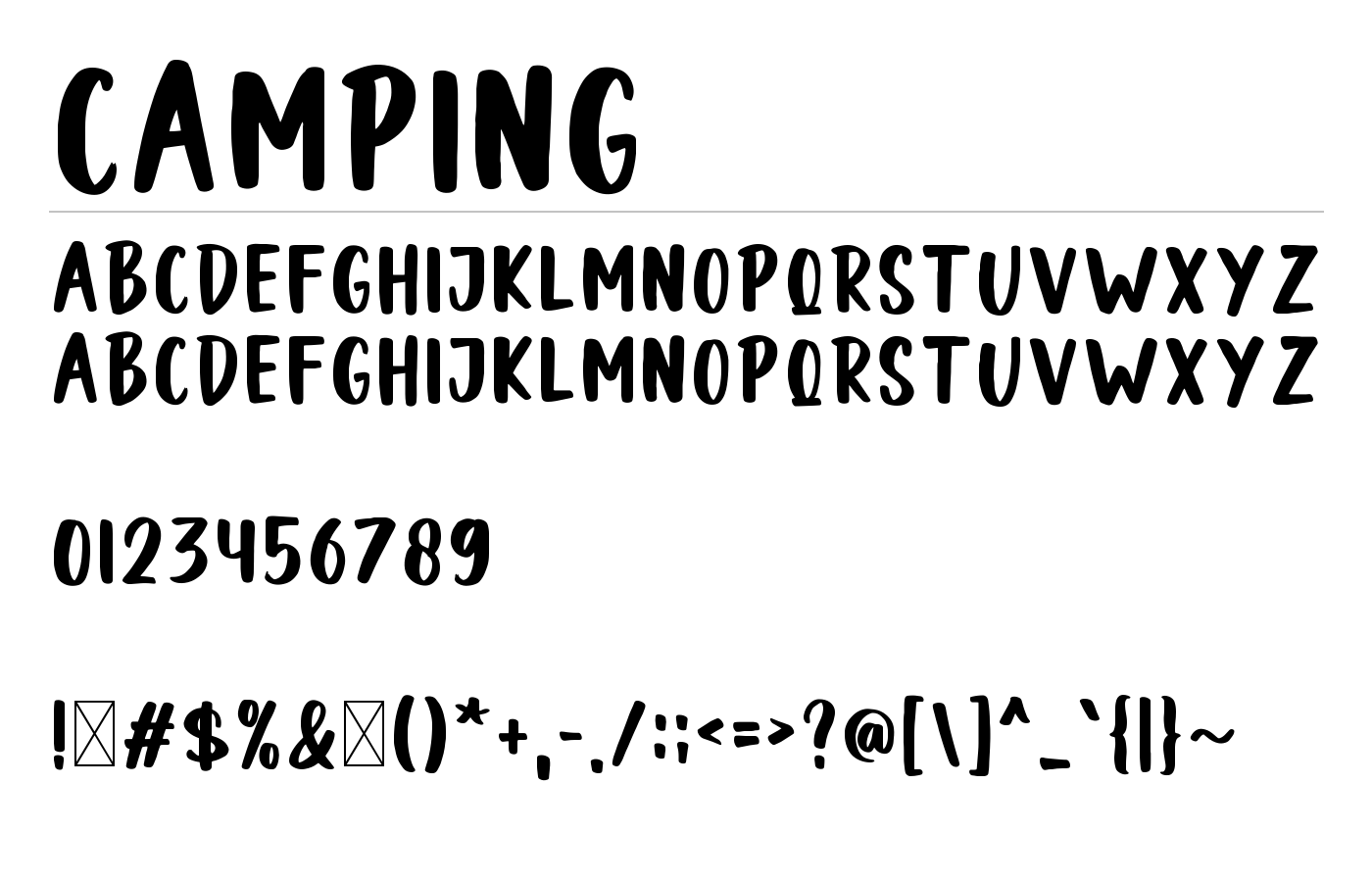
Camping Font is a bold, playful sans serif with a hand-drawn, casual feel that gives it a friendly and approachable character. Its slightly irregular strokes and rounded shapes make it perfect for creative, fun projects such as outdoor-themed branding, posters, and children’s materials where a warm, inviting vibe is desired. This font works best in headlines and logos that want to convey a sense of adventure and informal charm.
Camping Font
About Camping Font